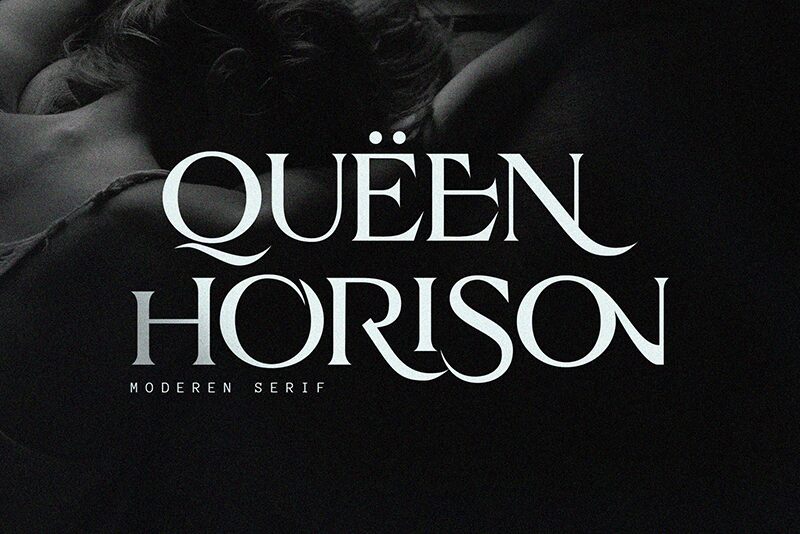
Horison
Horison, a creation by Dwi Sulistyono, stands out as a serif font that gracefully balances elegance with modernity. Its semi-light weight lends it an air of sophistication while maintaining readability, and the semi-expanded width offers a welcoming spaciousness within written content. The serifs are tastefully crafted, adding to the font's distinct character and aesthetic appeal. Horison's subtle curves and sharp lines converge to create a visual harmony that is versatile enough for various creative projects.
Ideal for designers looking to infuse their work with a blend of contemporary flair and classic style, Horison shines in branding materials, editorial layouts, and sophisticated print collateral. Whether displayed on digital platforms or in printed form, this font exudes an understated charm that captures attention without overwhelming the senses.